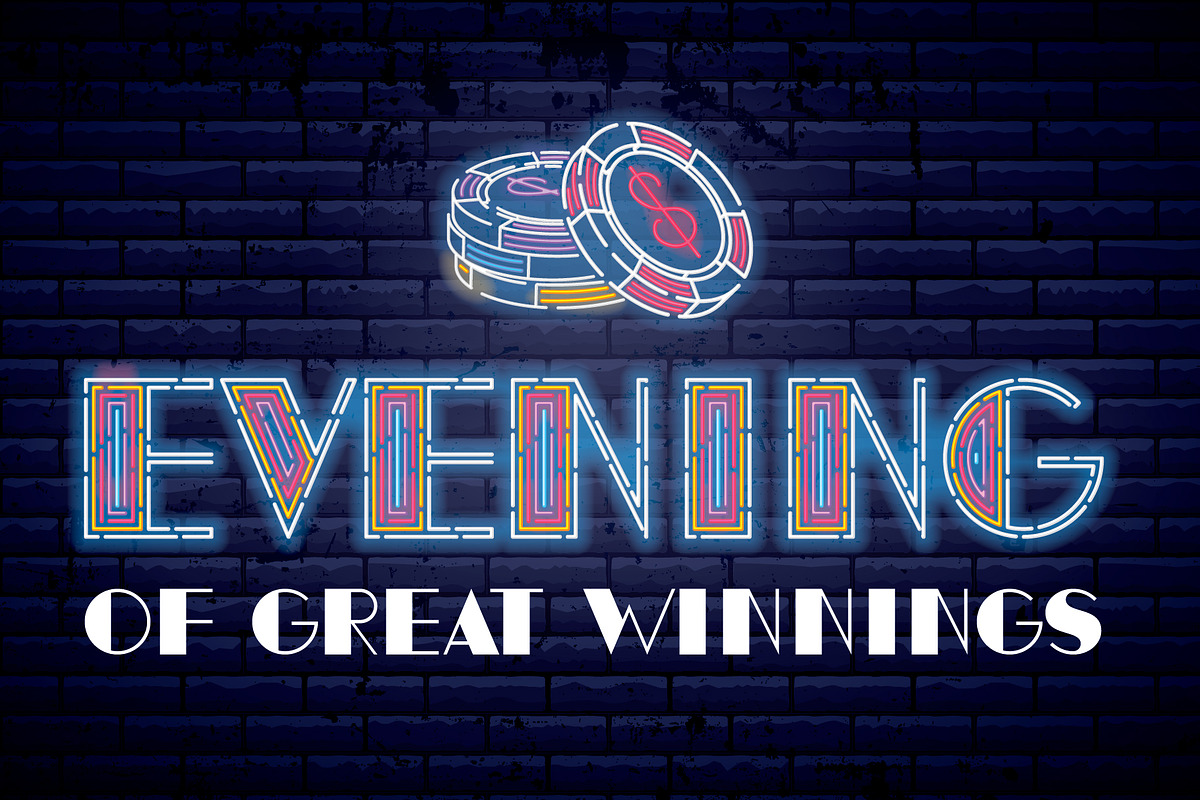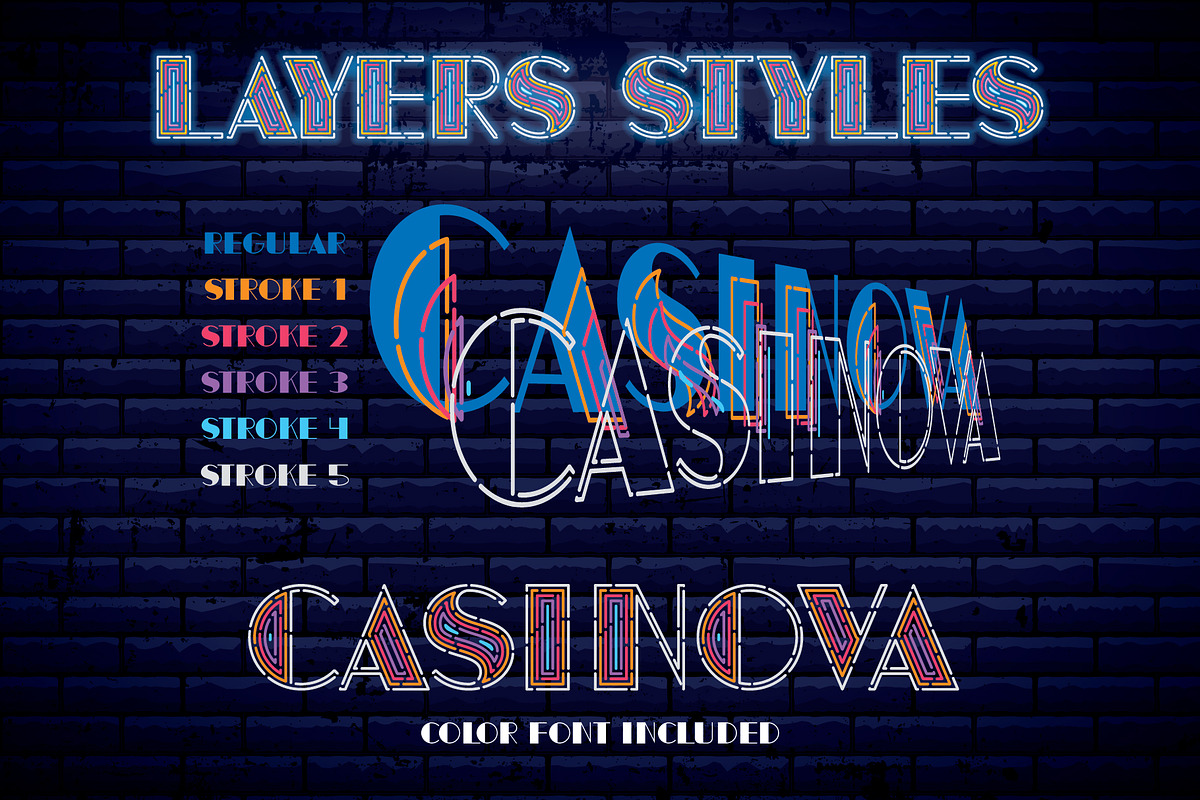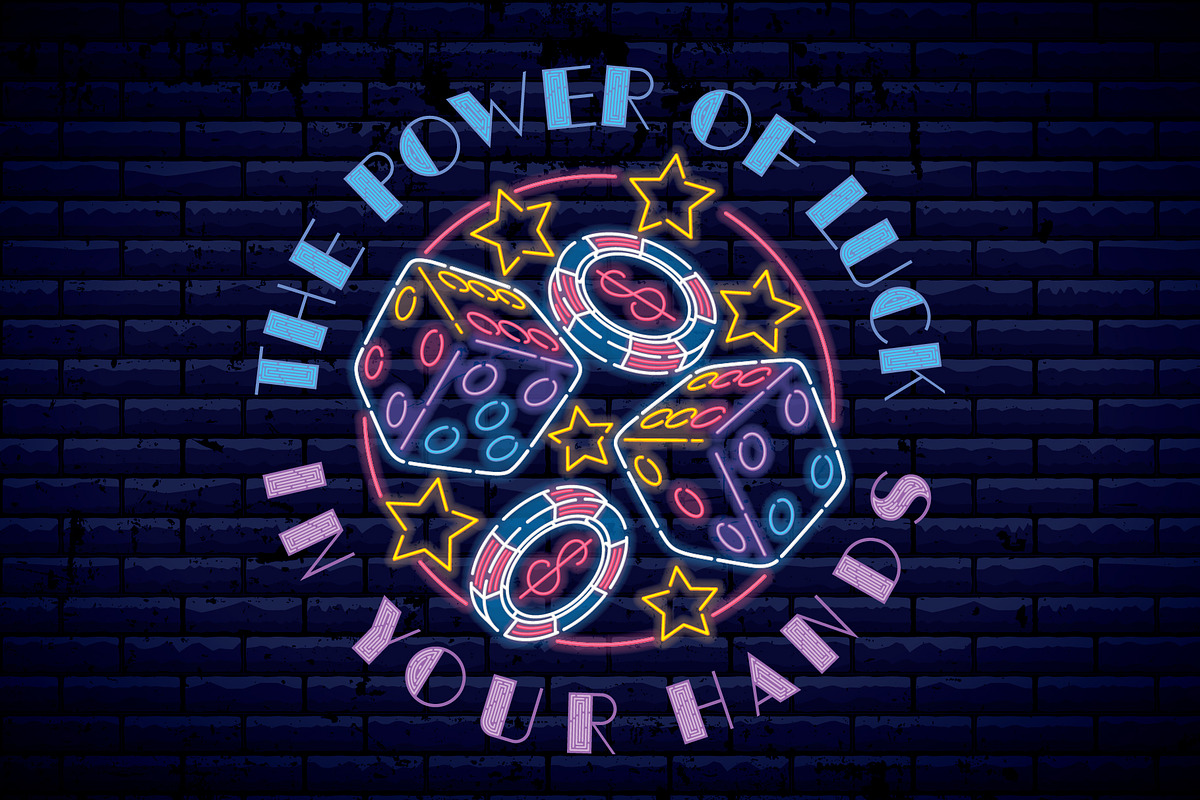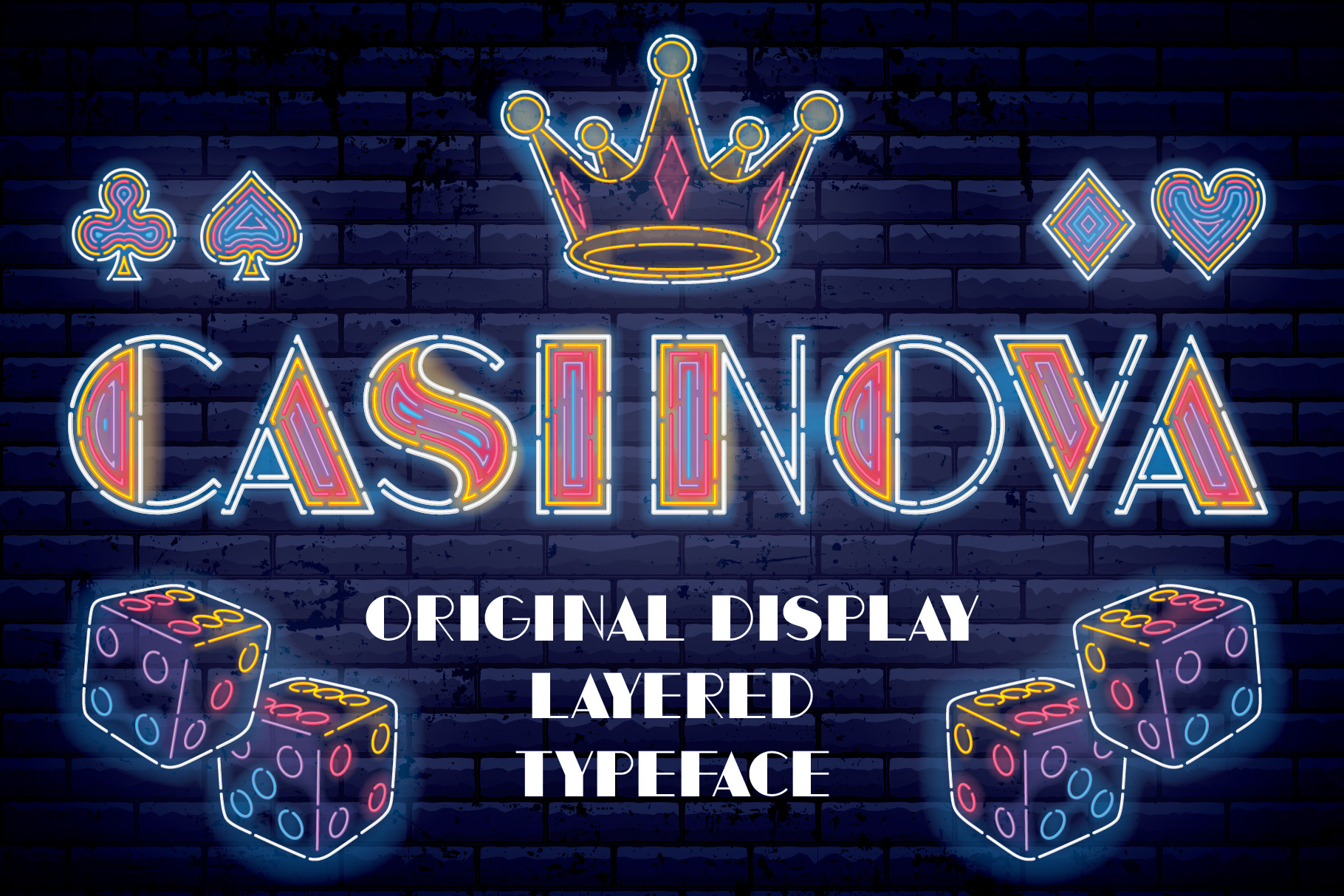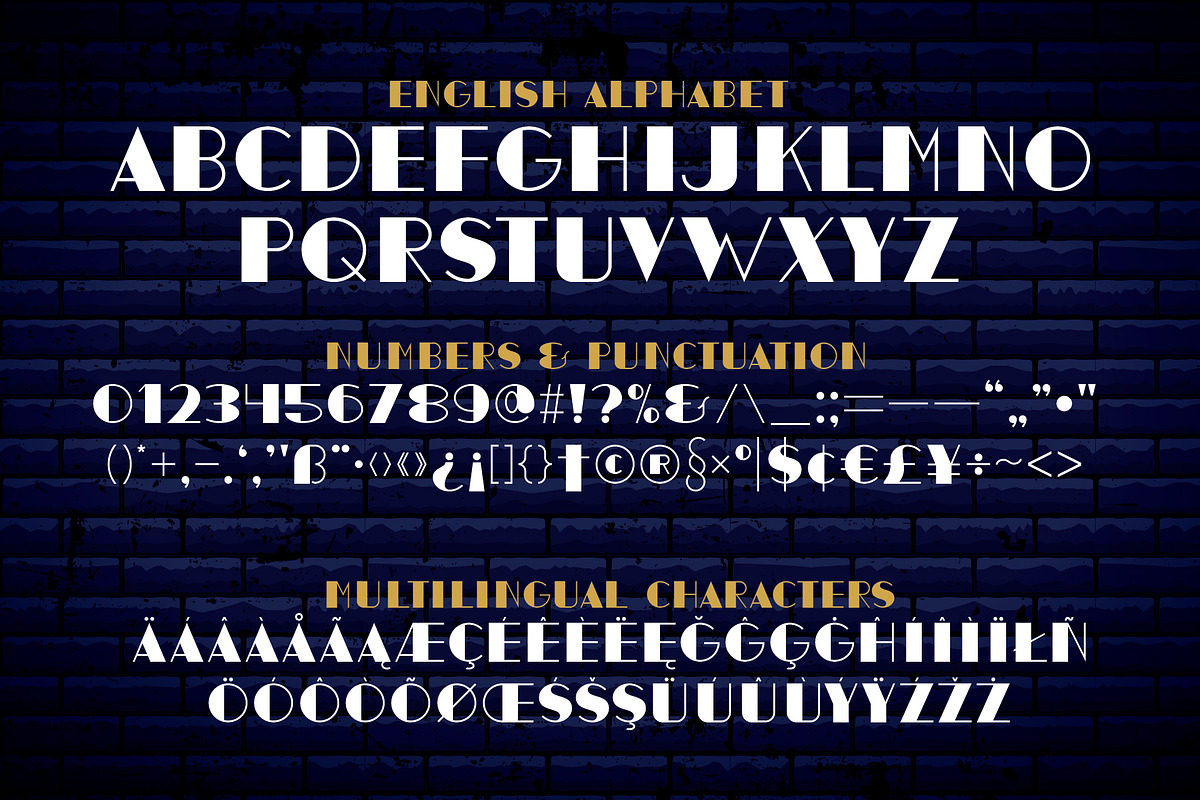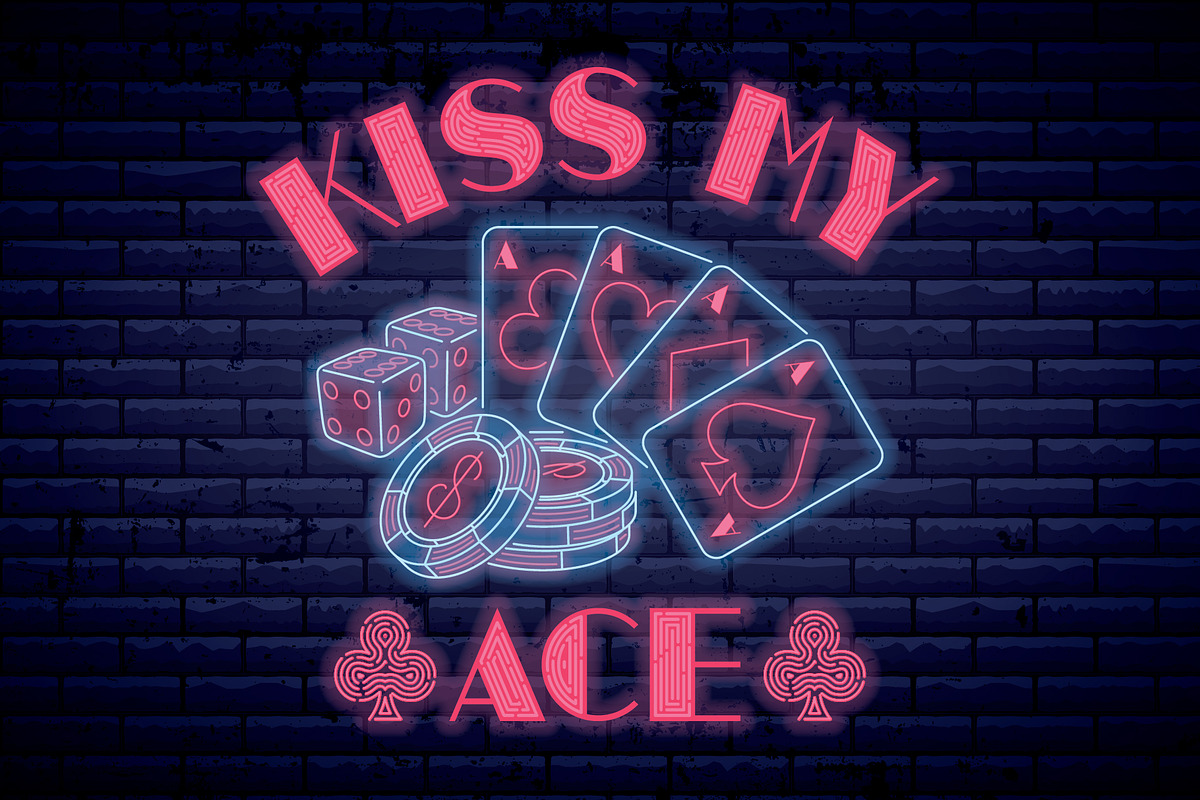
Casinova Layered Font
Introducing vintage label font named Casinova. The font is inspired by vintage signs from the mid-20th century, as well as neon casino signs. This font has a multilingual support (check out all available characters on previews). The font family has two styles: Regular and Color. Also the font has six layer effect styles you can see them on preview. This font will look good on any vintage styled designs like a poster, T-shirt, label, logo, etc.
- A lot of additional symbols and multilingual support.
- Layered font - separate font style for each inner contour.
- Color font included.